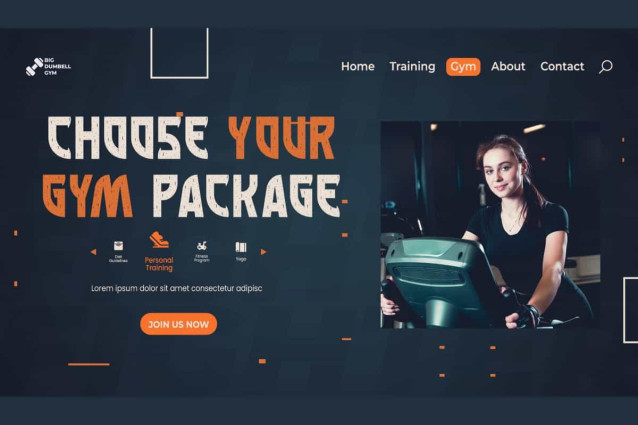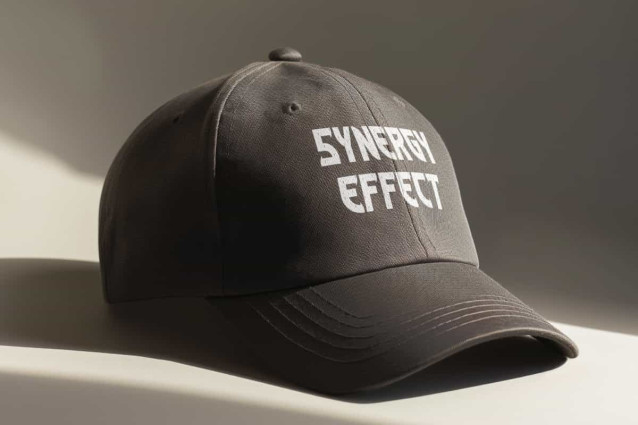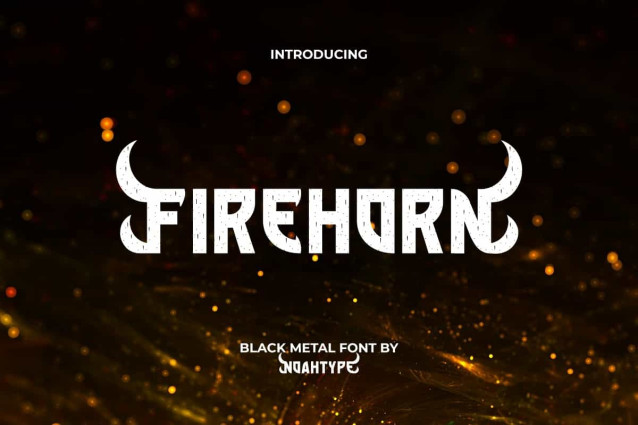
Firehorn Font
FireHorn Font is a cool gaming and sports decorative black metal font created by NoahType. This font has a bold look with a spark-like effect on the letters with the addition of horns for alternate characters. It will be perfect for any designs, such as stationery, custom design, signage, poster, brand image, cover, invitation, label, marketing material, menu, printing, product packaging, quotes, website, and many more!
FireHorn Font includes full set of ALL CAPS for Uppercase and Lowercase Basic Characters, Numerals, Punctuation, Symbol, and Alternate character. This font will make your design awesome and also a perfect choice for many industries, such as game, movie, fashion, event or festival, barber shop, accessories, advertising, art, café, printing, publishing, etc.